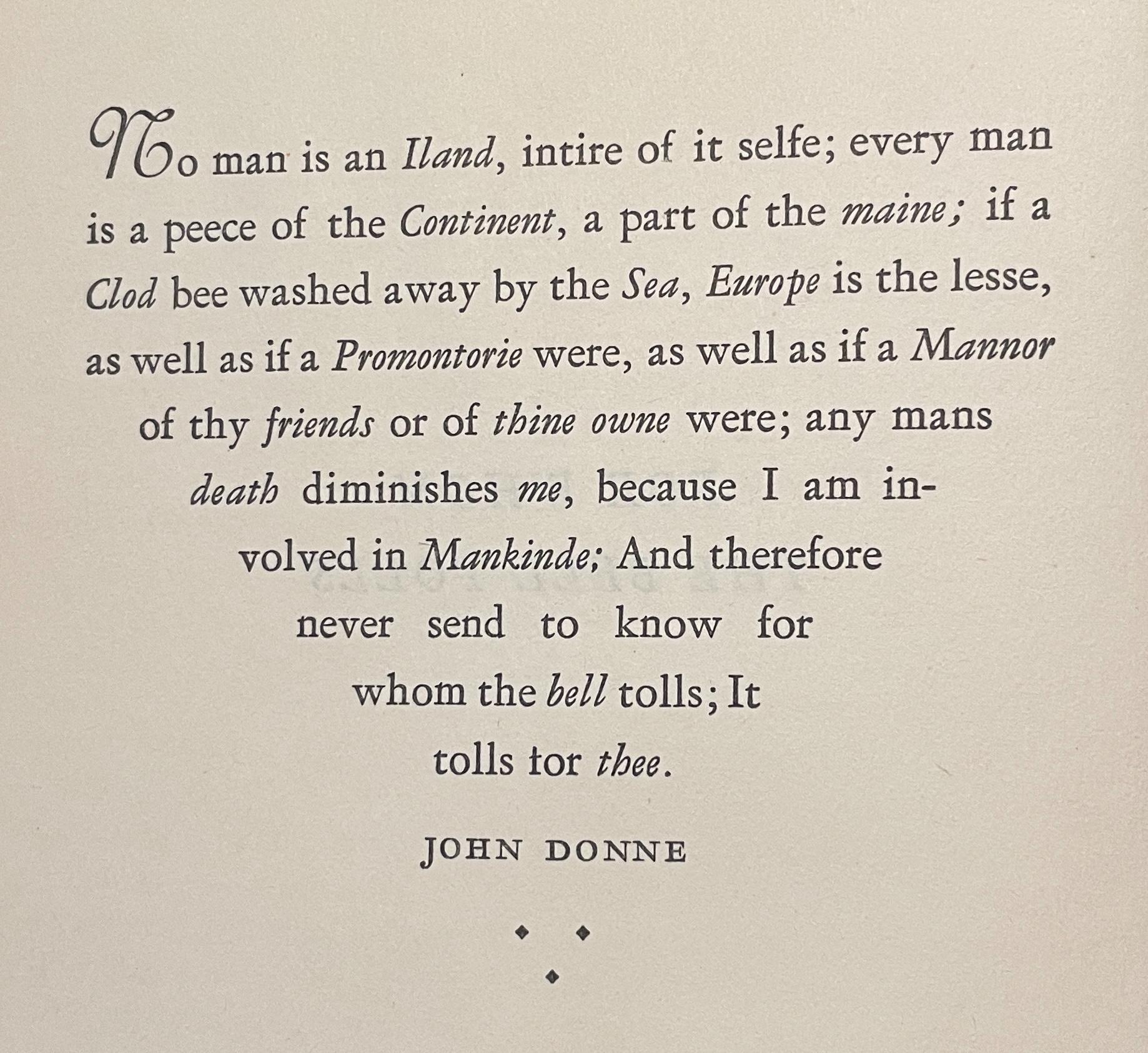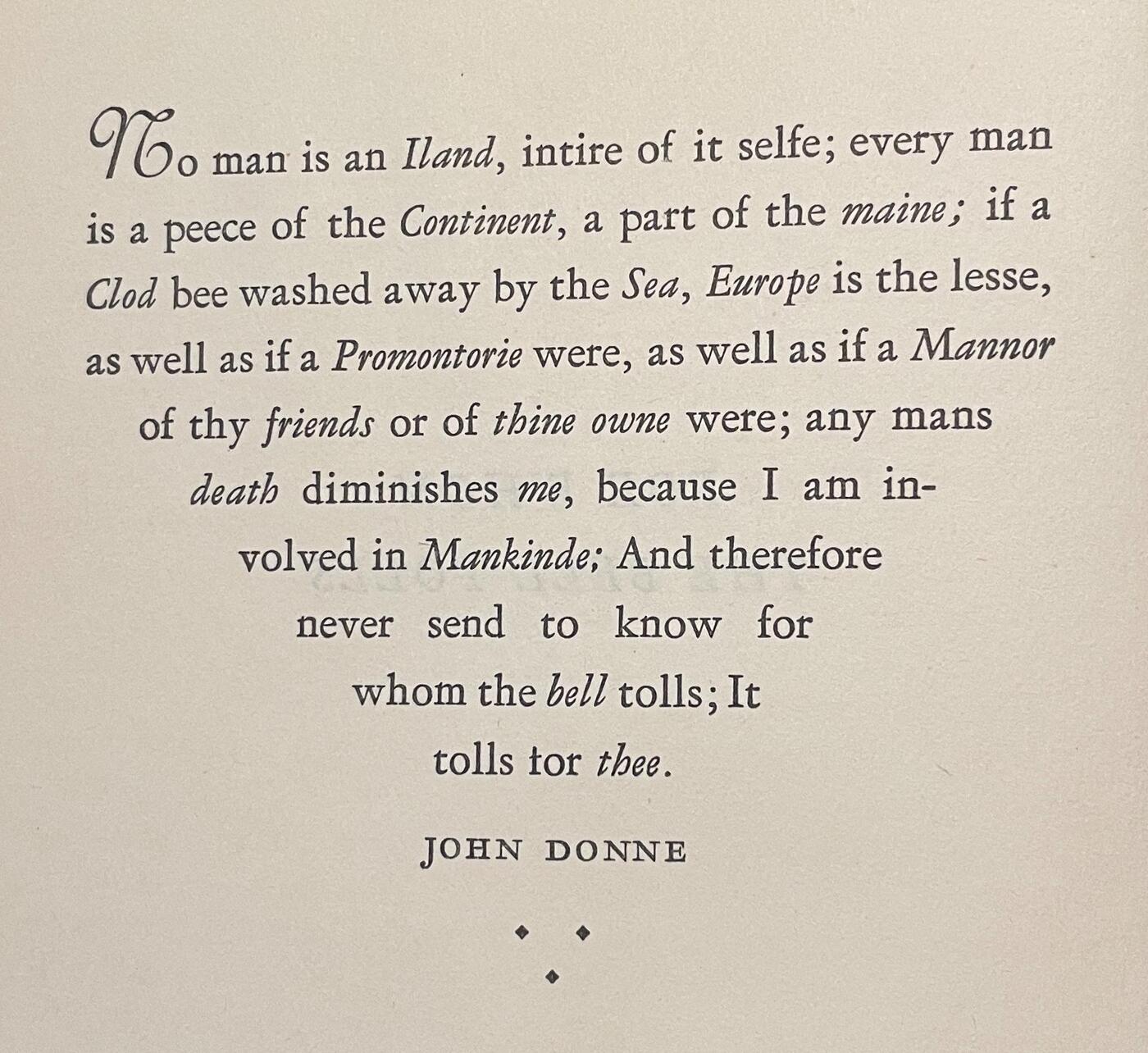
Identify the typeface in the epigraph of first edition "For Whom the Bell Tolls"
Please help me identify this typeface:
It is the epigraph page of a first edition "For Whom the Bell Tolls" by Ernest Hemingway, published in 1940 by Charles Scribner's Sons.
Looks like it's a vintage version of Garamond... This is pretty close: